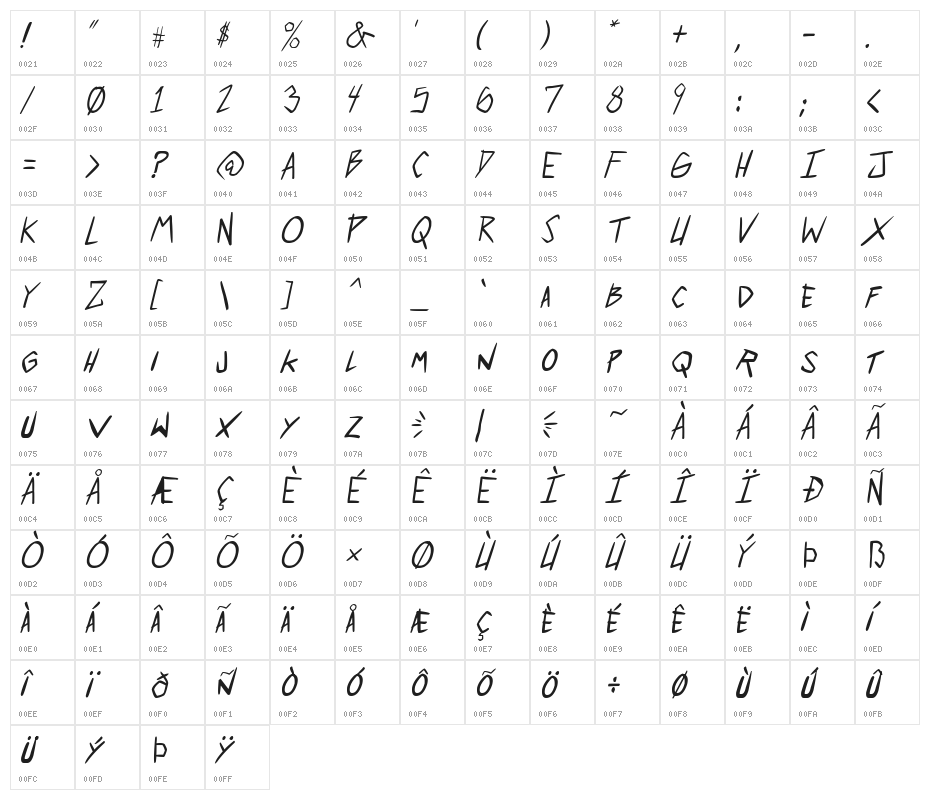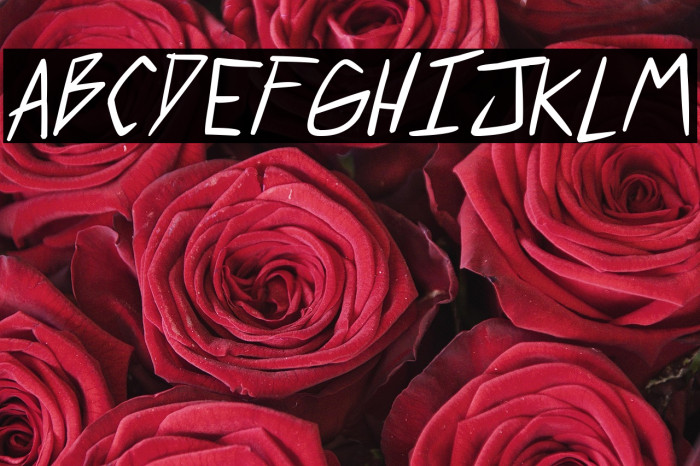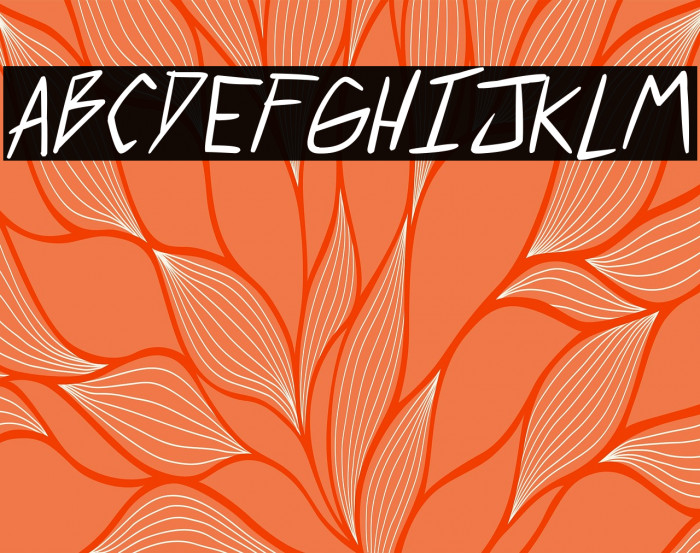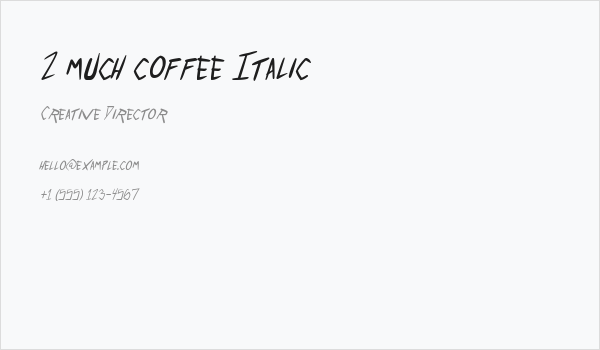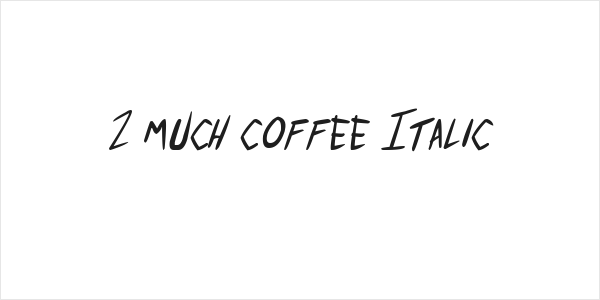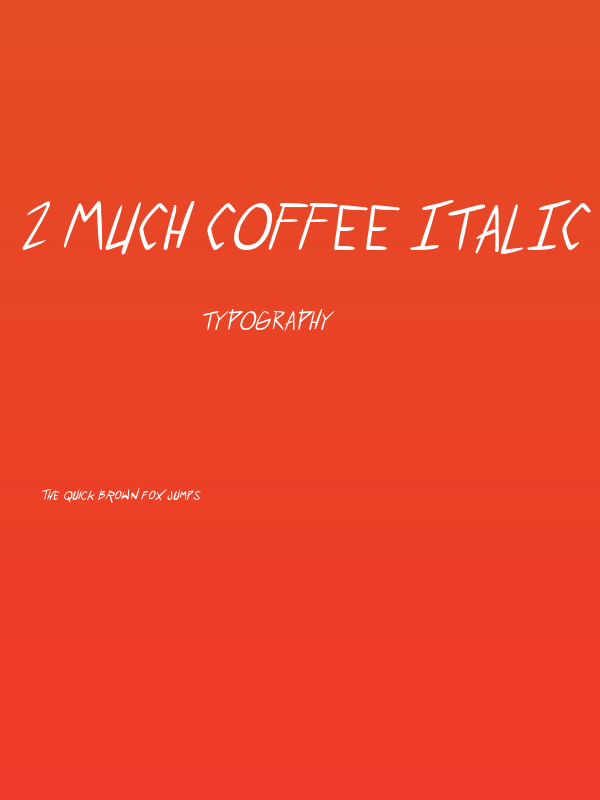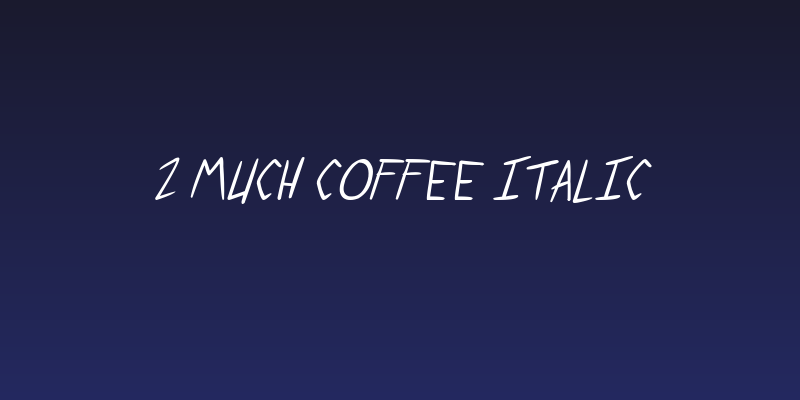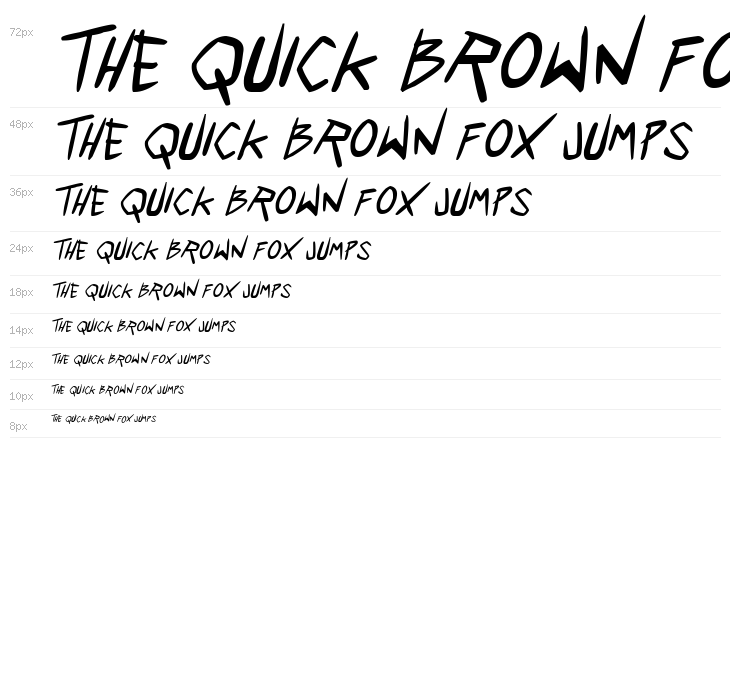
2 much coffee Italic Font
2 much coffee Italic Description
This font features a dynamic and energetic style, characterized by its sharp, angular strokes and a slightly slanted orientation, giving it an italicized appearance. The uppercase and lowercase letters maintain a consistent, hand-drawn aesthetic, with each character exhibiting a unique, playful flair. The numerals and special characters follow the same lively design, ensuring a cohesive look across all text elements. The font's irregular line thickness and spontaneous curves contribute to its informal and casual vibe, making it suitable for projects that require a personal touch.
| Use Case | Headlines, Informal branding, Creative projects |
| Proposed Projects | Ideal for creative projects such as posters, greeting cards, and informal branding materials where a playful and personal touch is desired. |